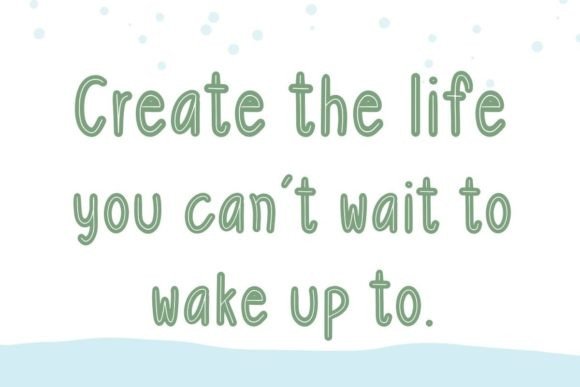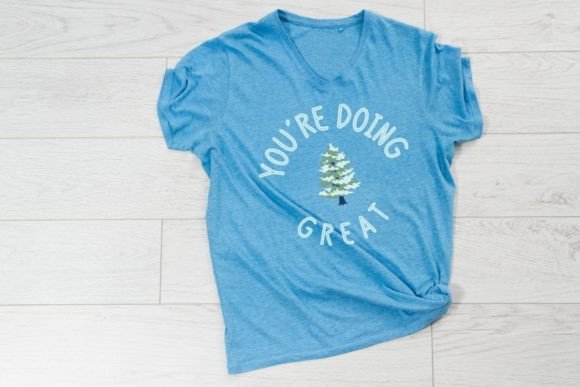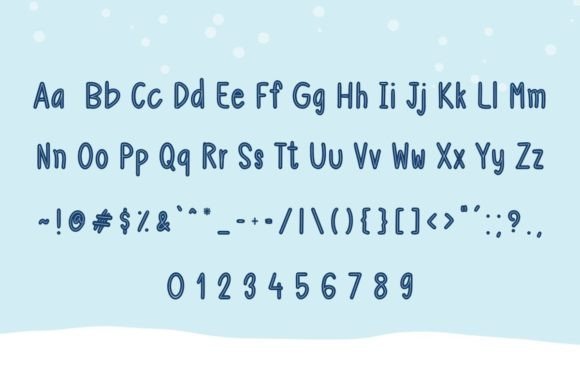
Introduction to Eskimo Font
ESKIMO is and funny display font.
It embodies playfulness and authenticity and is the perfect choice for any children’s activity or school project Perfect for branding, invitations, blogs, and planners.
Key Features of Eskimo Font